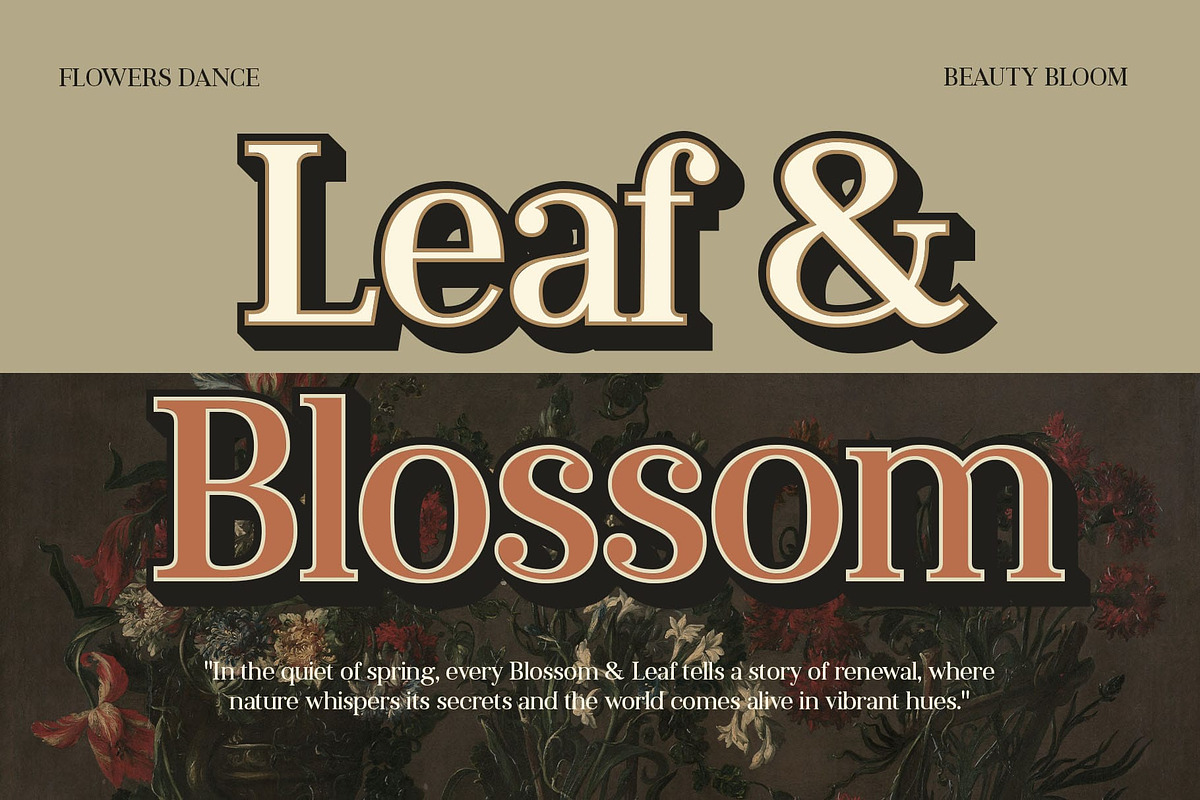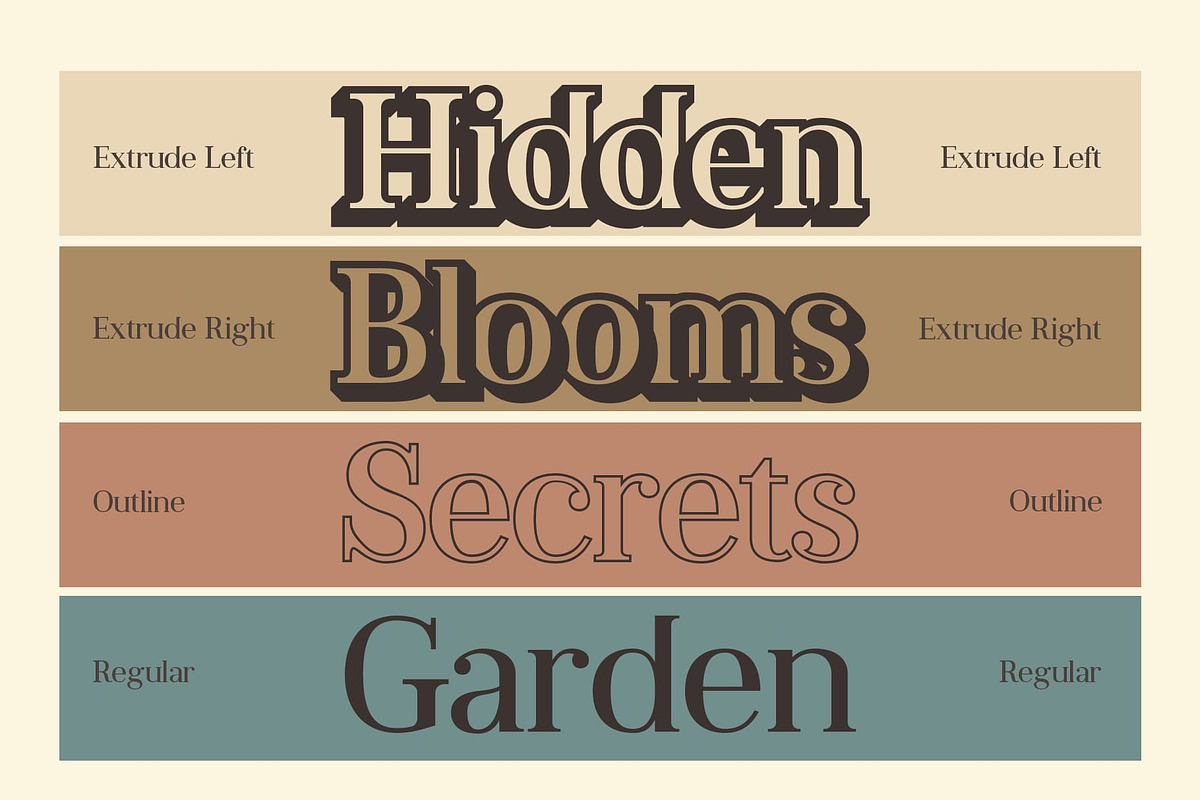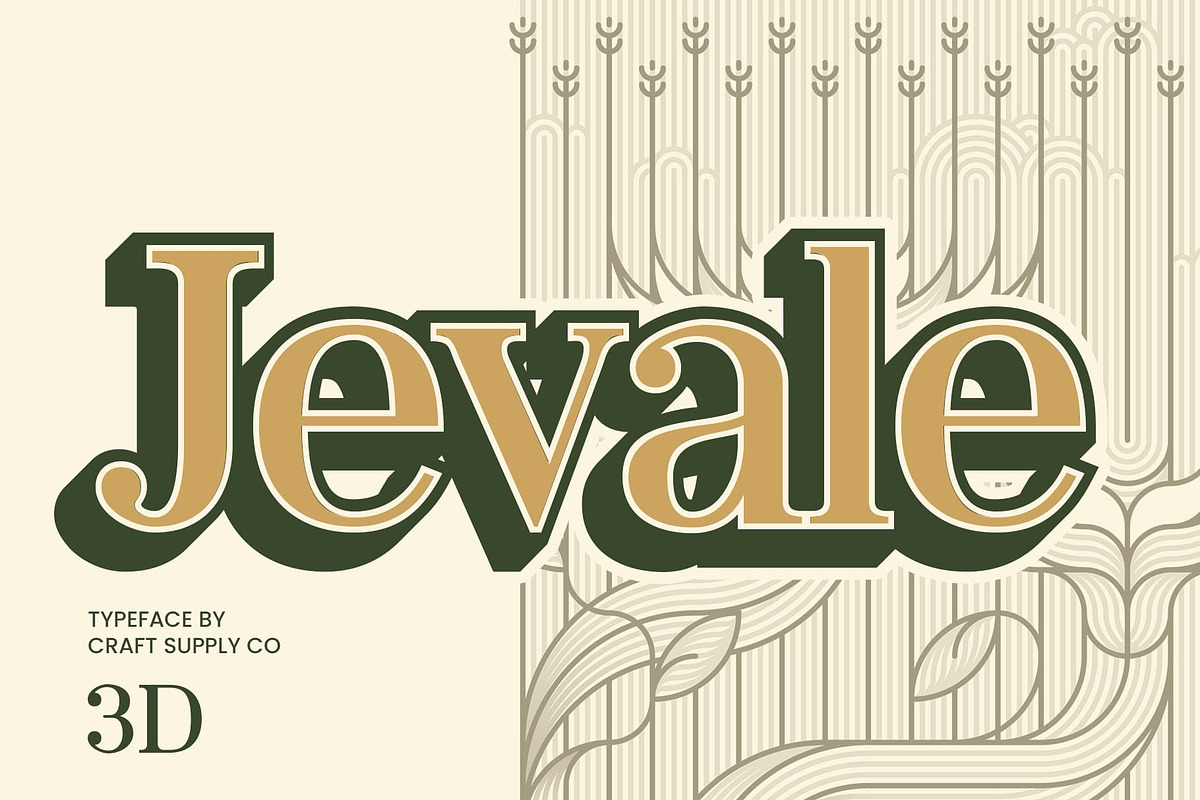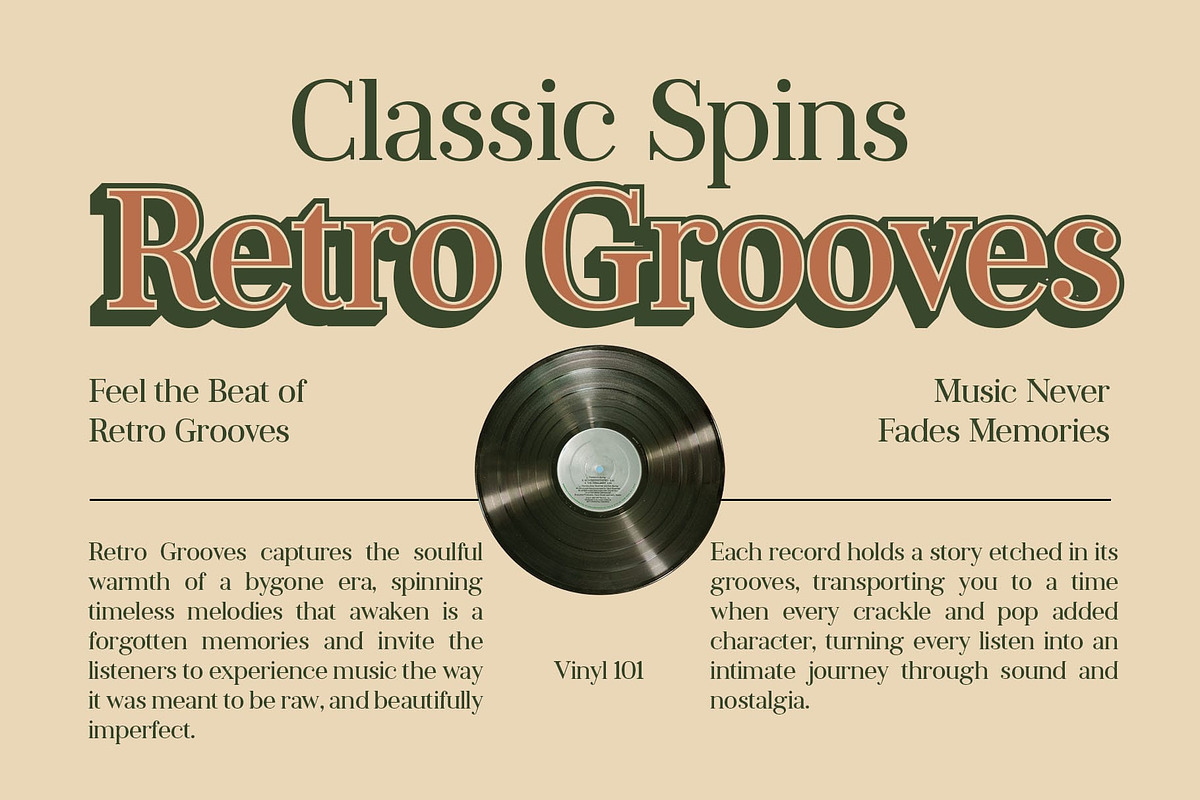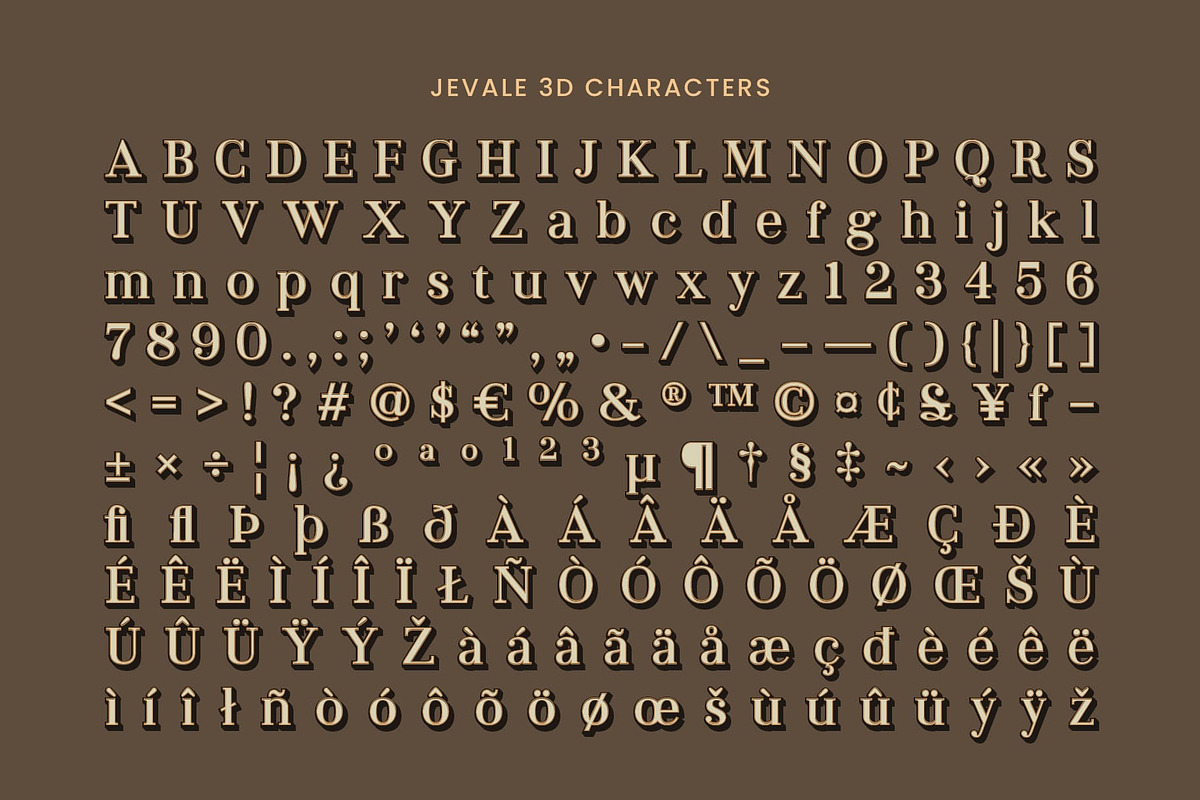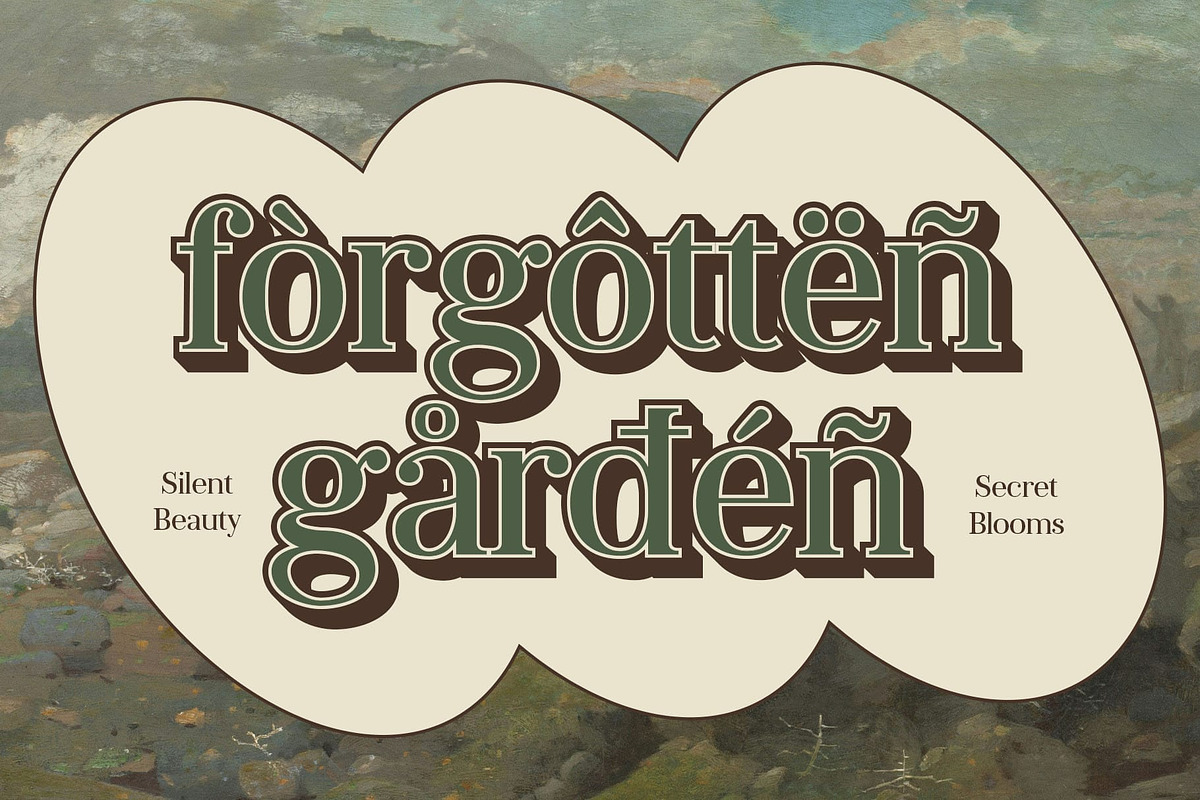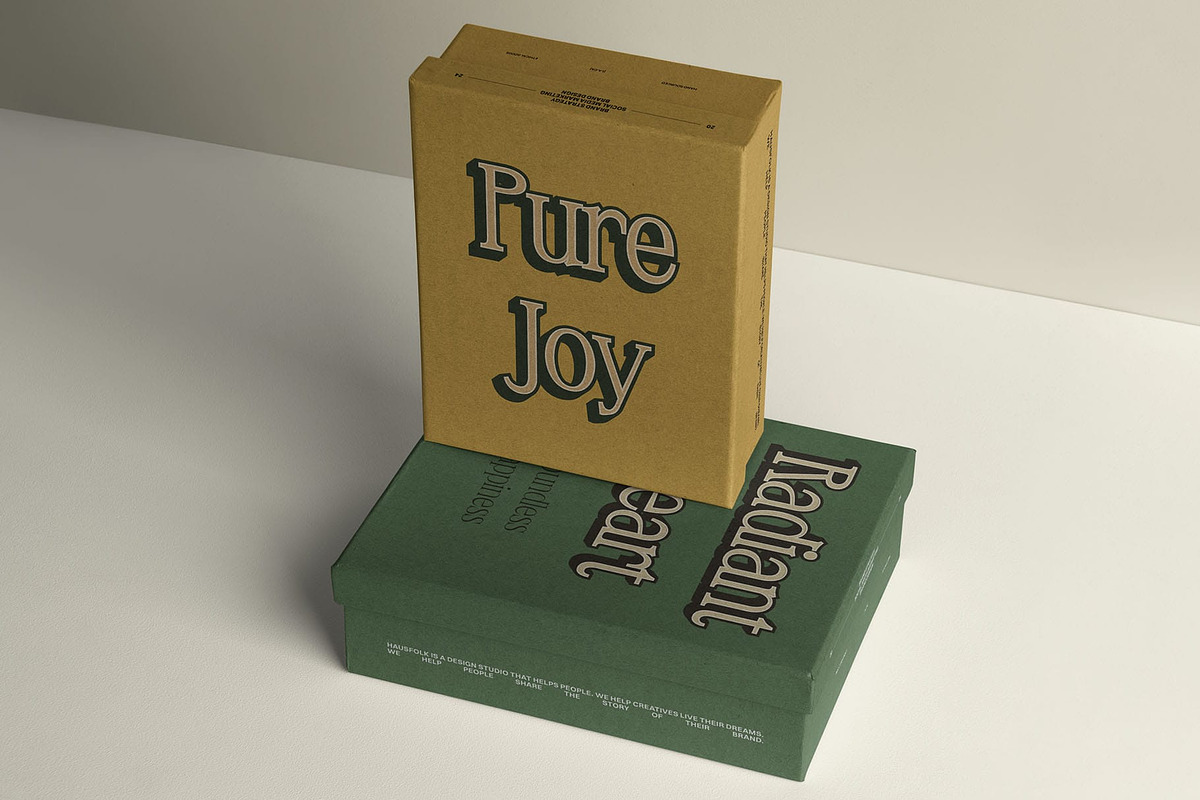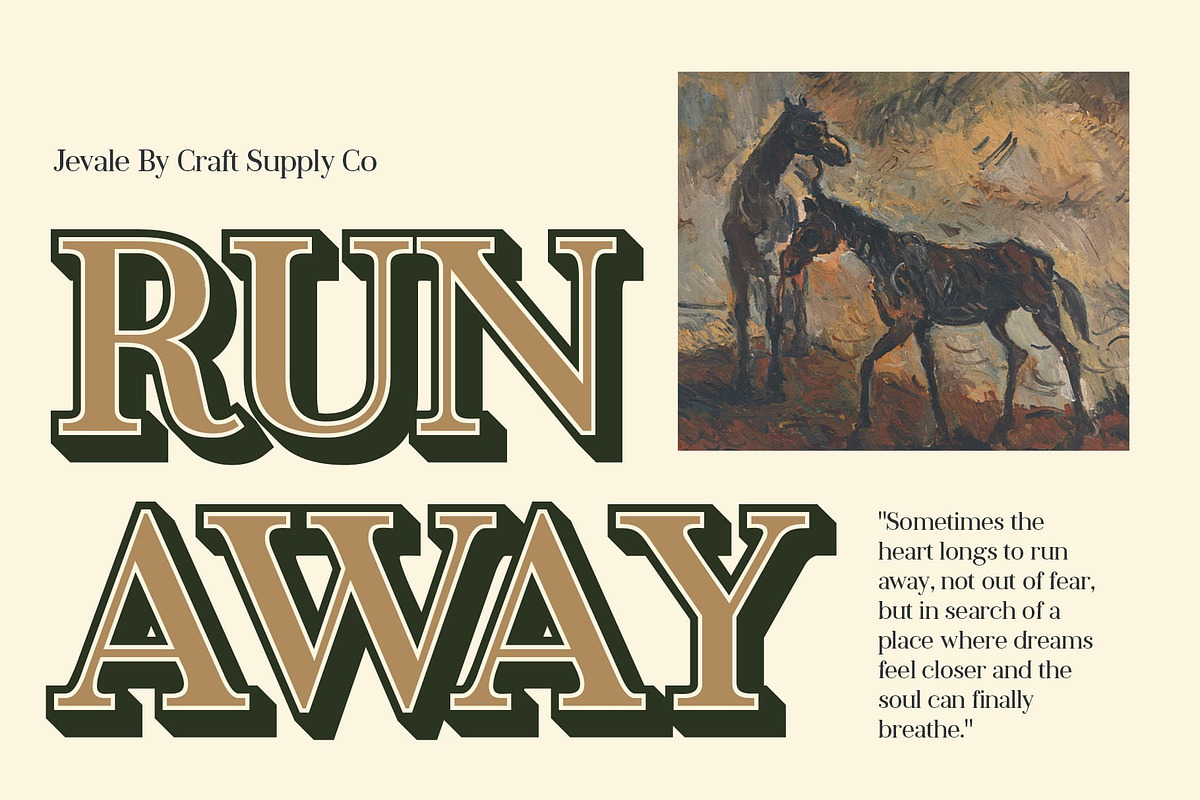
Jevale 3D
Jevale 3D Font – Timeless Elegance with a Modern Dimension
Classic Serif with a Contemporary Touch Jevale 3D is a modern classic serif font that masterfully blends timeless elegance with a fresh, contemporary design. The clean, refined letterforms exude sophistication while maintaining a sleek, modern appeal. This combination of classic and modern elements gives the font a versatile, polished look that works across various design applications.
Striking 3D Effect for Added Depth The distinct 3D effect applied to Jevale brings an eye-catching depth to each character, creating a bold, dimensional presence. The added depth enhances the font’s visual impact, making it stand out without compromising its elegant style. The 3D effect introduces a modern twist, giving the font a dynamic and futuristic look that’s perfect for creating memorable designs.
Ideal for High-End Branding and Premium Designs Jevale 3D’s combination of classic serif design and striking 3D aesthetics makes it an ideal choice for high-end branding, premium editorial work, and luxury product designs. Whether you’re working on sophisticated logos, refined promotional materials, or upscale packaging, this font brings a sense of elegance and modernity that is sure to make an impression.
Versatile and Sophisticated for Dynamic Projects Thanks to its strong contrast between classic style and innovative 3D features, Jevale 3D offers versatility for a wide range of premium design projects. From high-profile branding and editorial layouts to invitations, event signage, and luxury advertising.
- Jevale Regular
- Jevale Outline
- Jevale Extrude Right
- Jevale Extrude Left